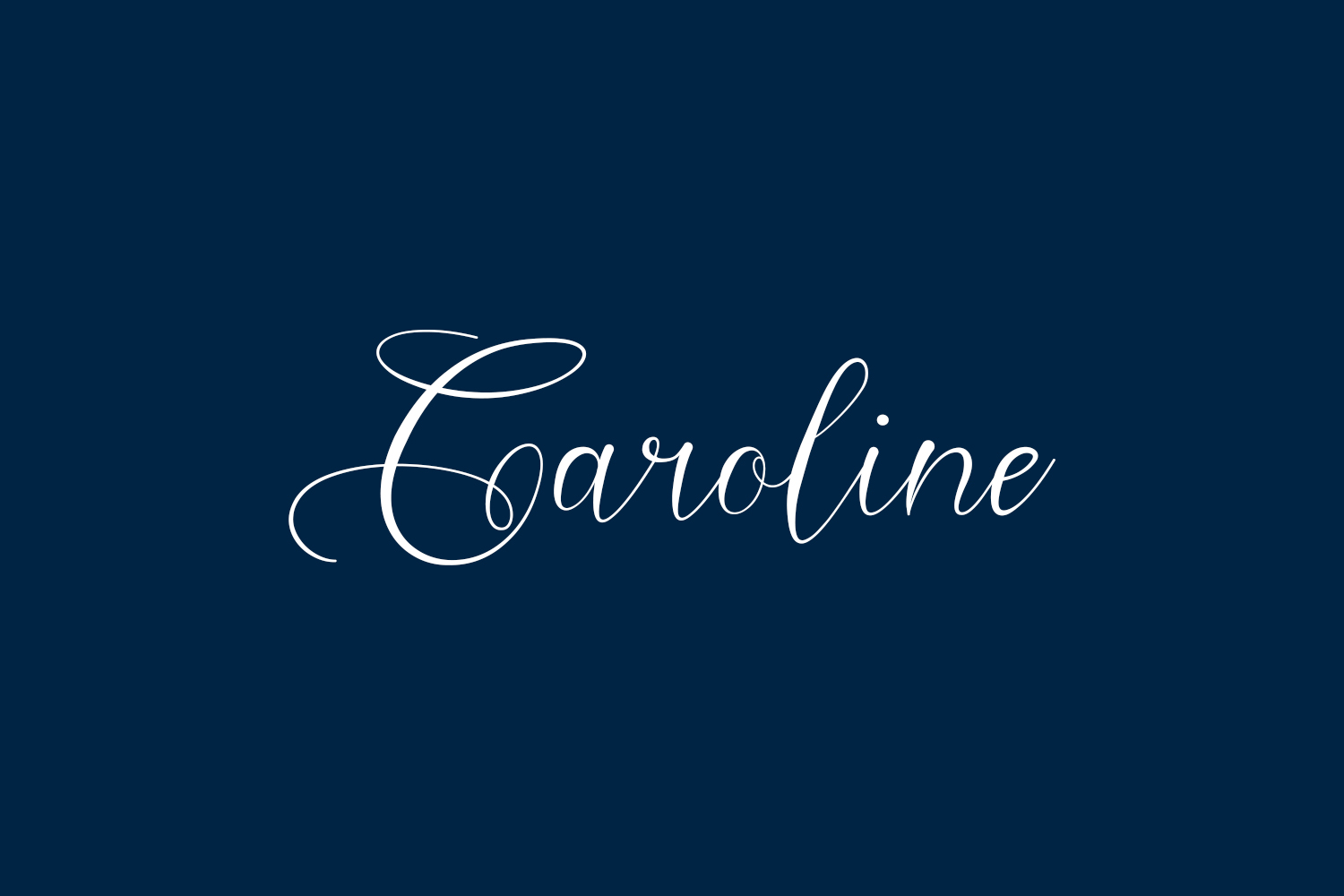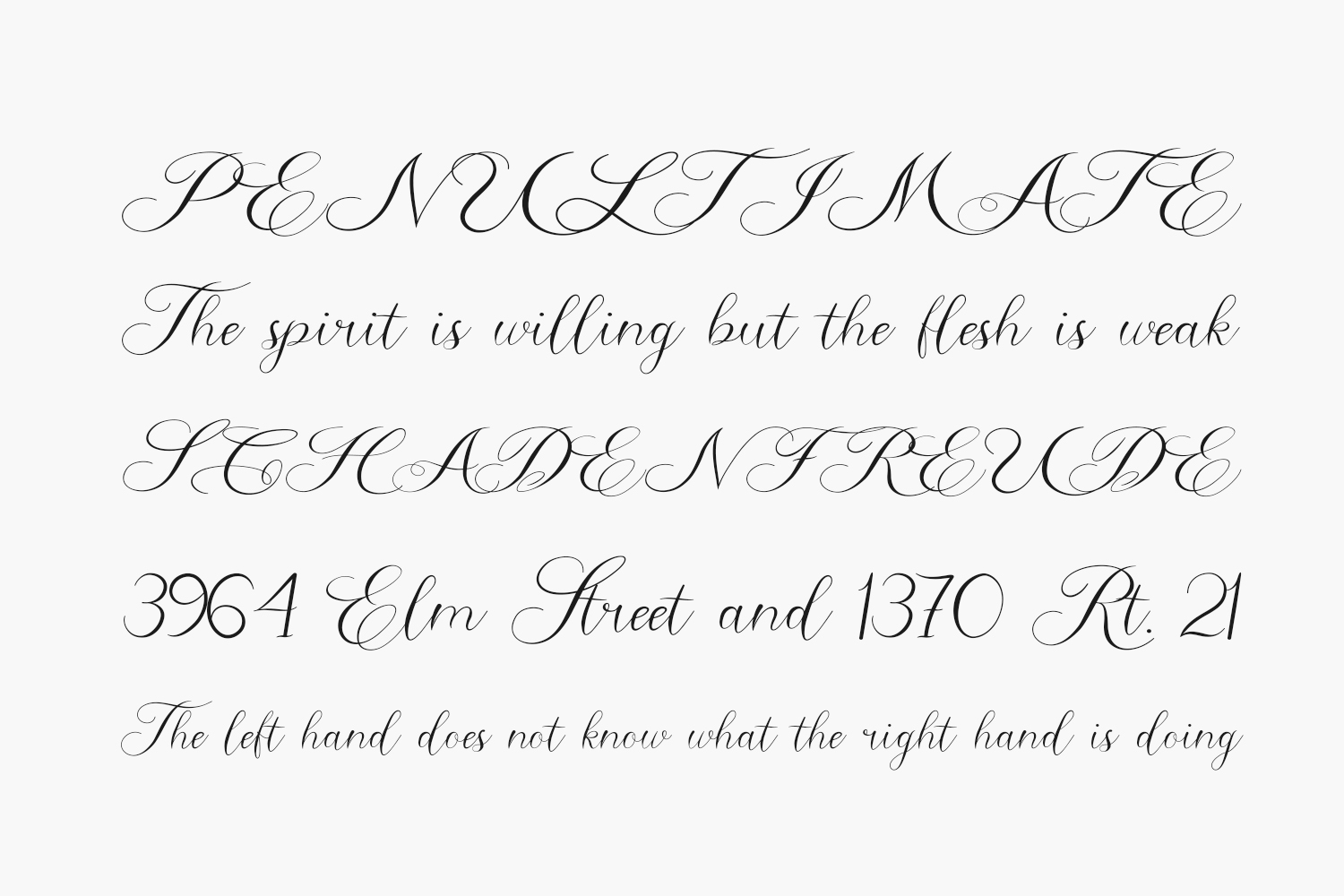
Caroline Free Font is cursive and thin lettered script font. Fall for its ravishing style and use it to create gorgeous designs. Caroline Free Font was designed by Basni.std and is free for personal use only. Please purchase the full version for commercial use.